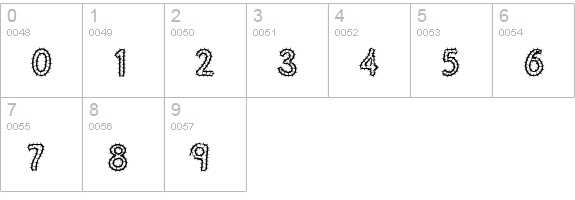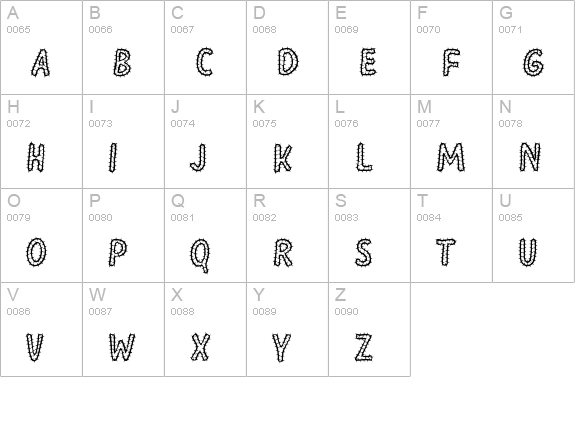
MushmellowCactus Font Details
Introducing MushmellowCactus Font - a whimsical and playful typeface that combines the softness of marshmallows with the prickly charm of a cactus. This unique font is perfect for adding a touch of fun and creativity to your projects, whether it's for invitations, branding, posters, or greeting cards. MushmellowCactus Font features a delightful mix of rounded edges and spiky accents, creating a harmonious blend of sweet and sharp elements. The best part? MushmellowCactus Font is completely free for personal and commercial use. You can easily download this font at FontsMarket.com and start incorporating its cheerful vibes into your designs today. Let MushmellowCactus Font add a playful and vibrant touch to your creations, and watch as it brings a smile to anyone who sees it.